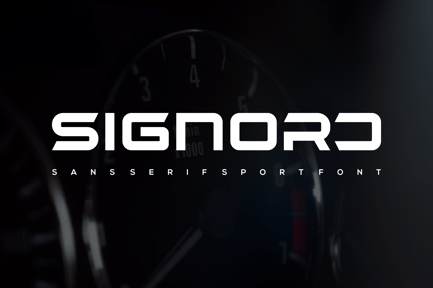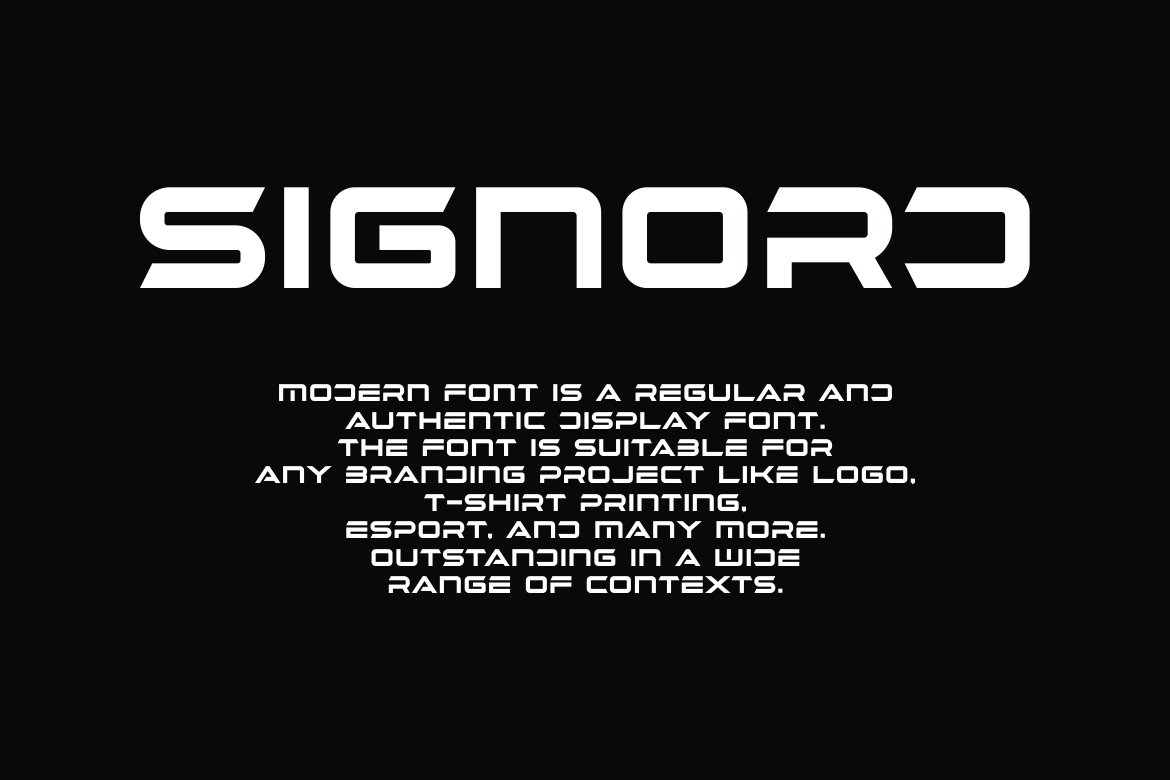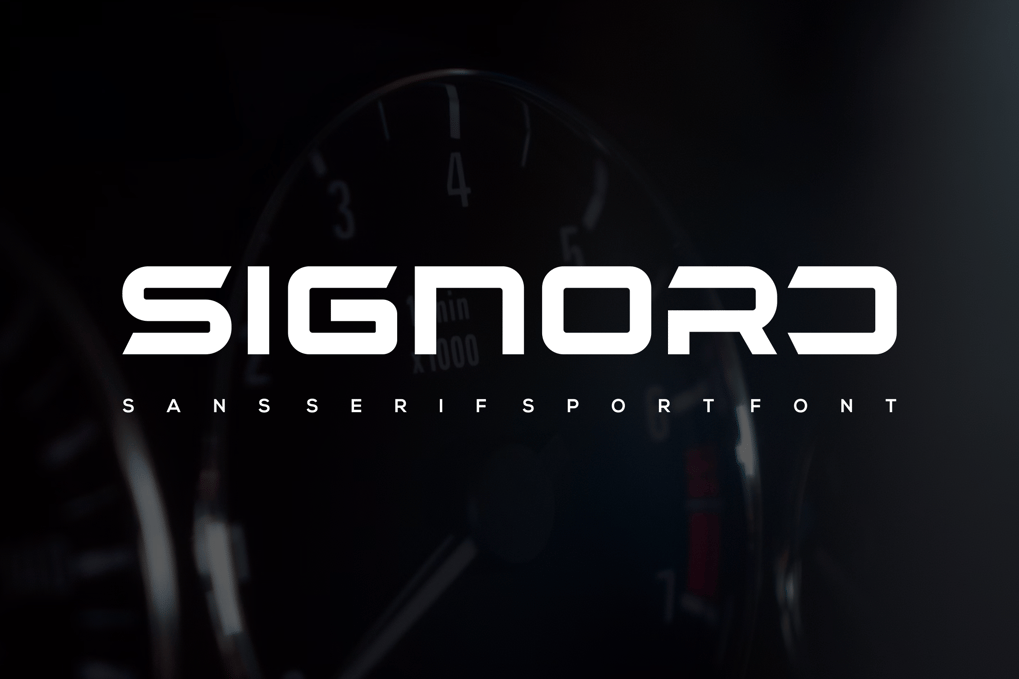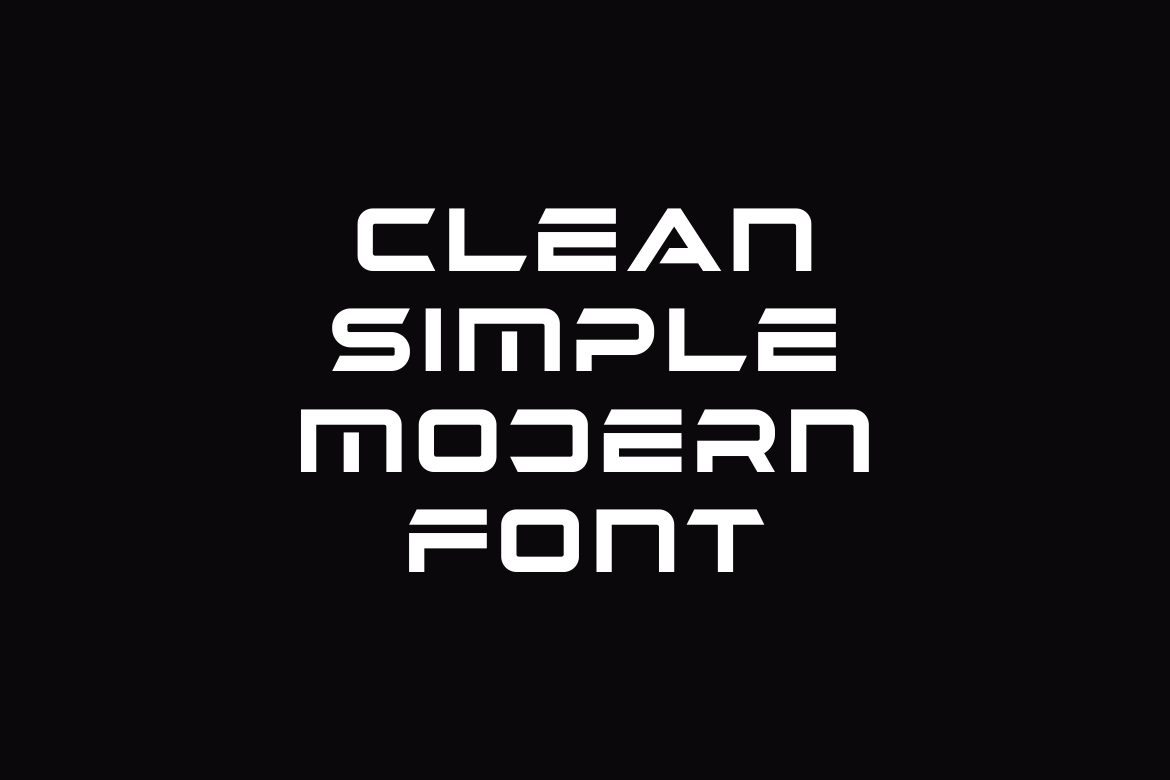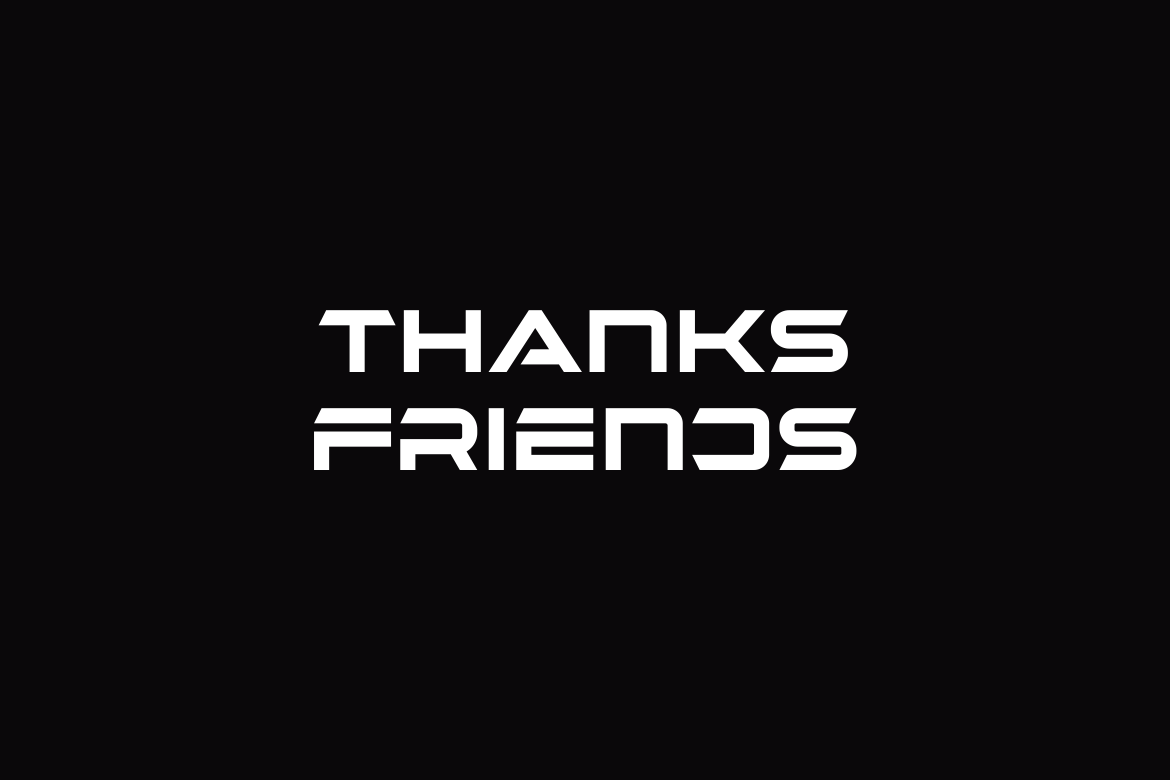
Signord Font
Signord Font – Modern Font is a bold and authentic display font. The font is suitable for any branding project like logo, esport, and many more. outstanding in a wide range of contexts.